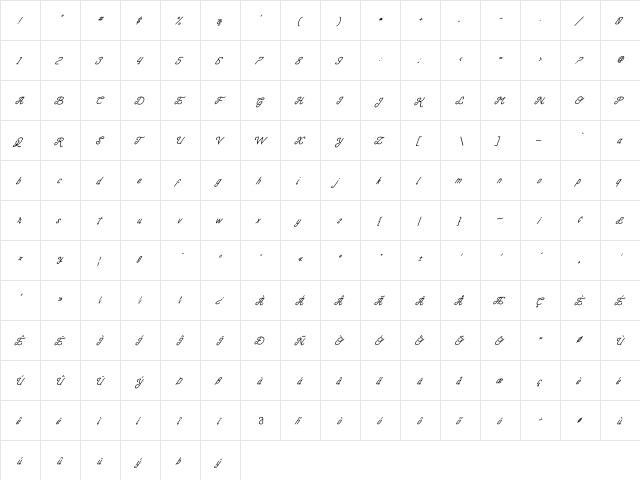
Piccolo Carino Tilted Regular
Design Context for Piccolo Carino Tilted Typeface
Piccolo Carino Tilted takes a measured approach to typography — its balanced proportions and neutral character make it a reliable workhorse for both digital and print work.